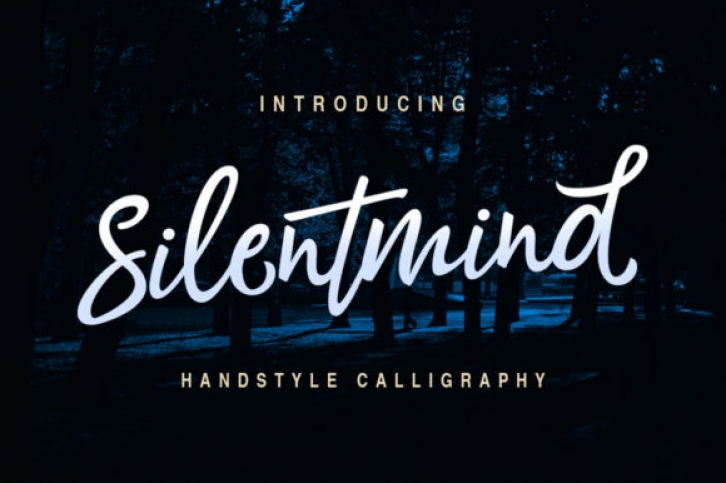
The Silentmind is a modern calligraphy script. It includes amazing characters & a multitude of letter variations to make that perfect and unique design.